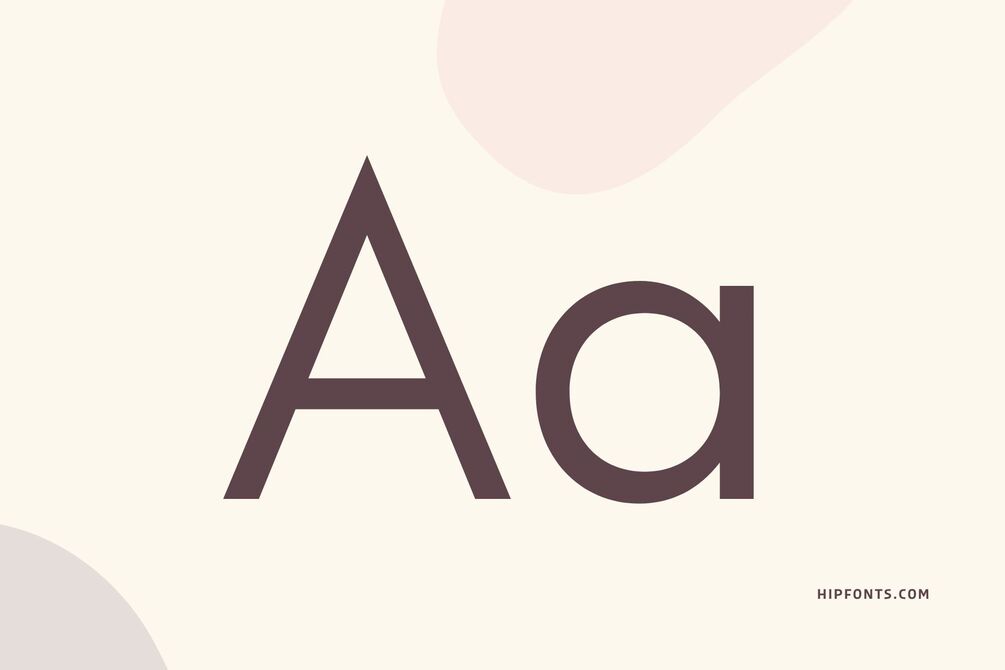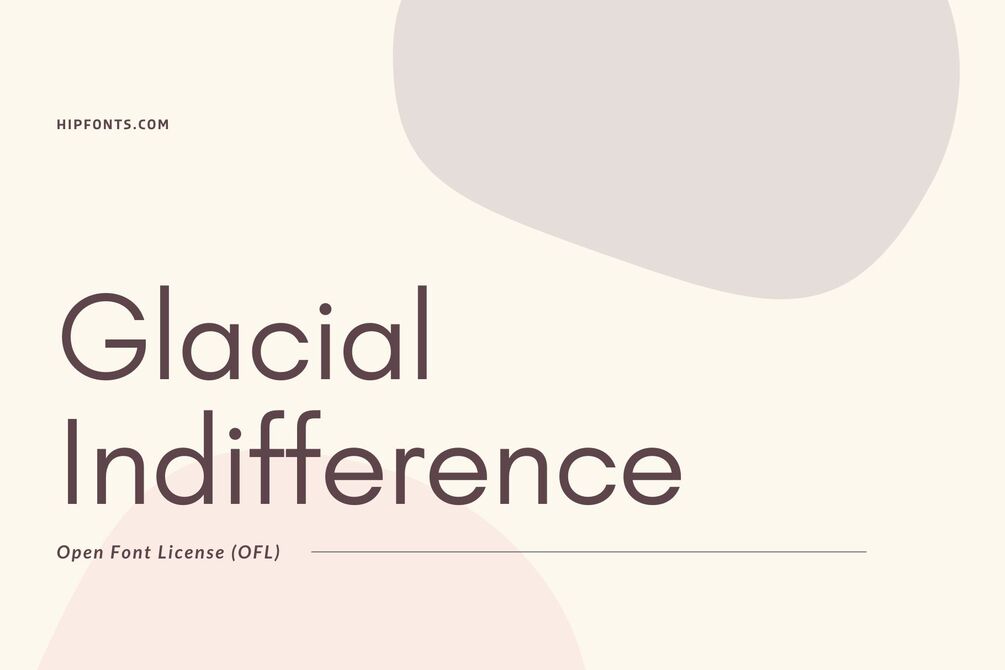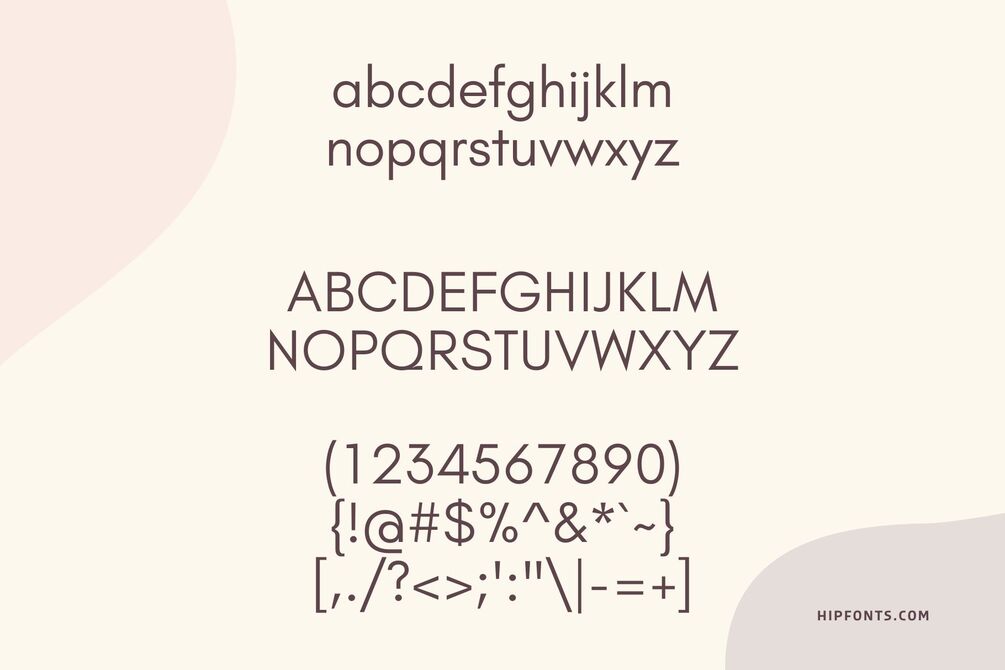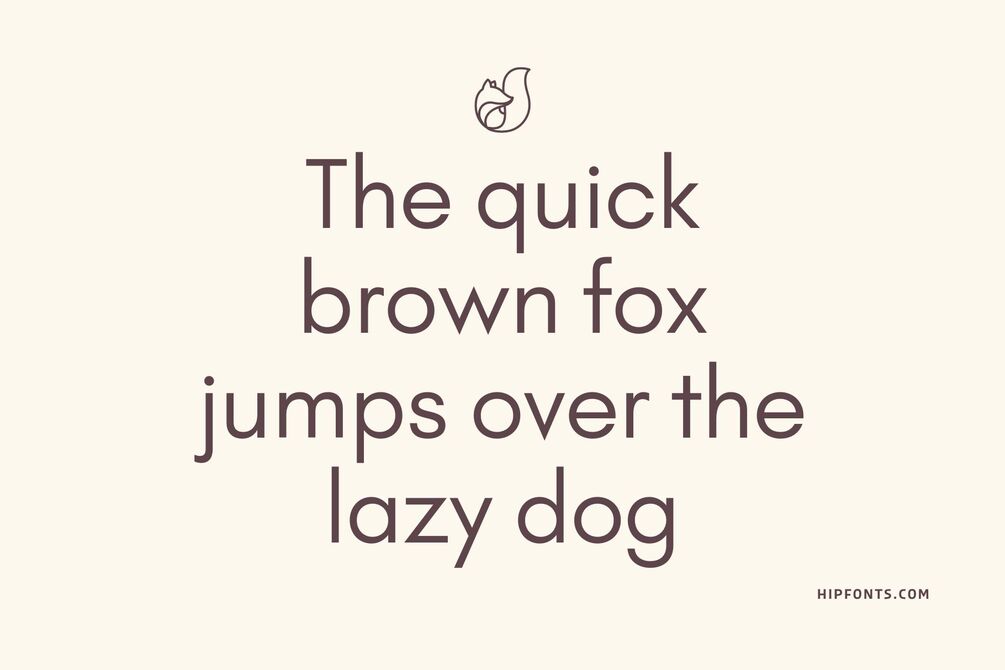
Glacial Indifference
Designed by Alfredo Marco Pradil, Glacial Indifference is a versatile and clean font that embodies simplicity and minimalism. With its balanced letterforms and even stroke widths, it creates a sense of harmony and clarity in typography.
The understated elegance of Glacial Indifference allows it to seamlessly blend into various design styles, making it a popular choice for both digital and print applications. From websites and user interfaces to editorial layouts and branding materials, Glacial Indifference brings a clean and modern aesthetic that enhances readability and ensures a pleasant visual experience.
Its simplicity allows the content to take center stage, making it a reliable and go-to option for designers who value clarity and legibility in their typographic choices.